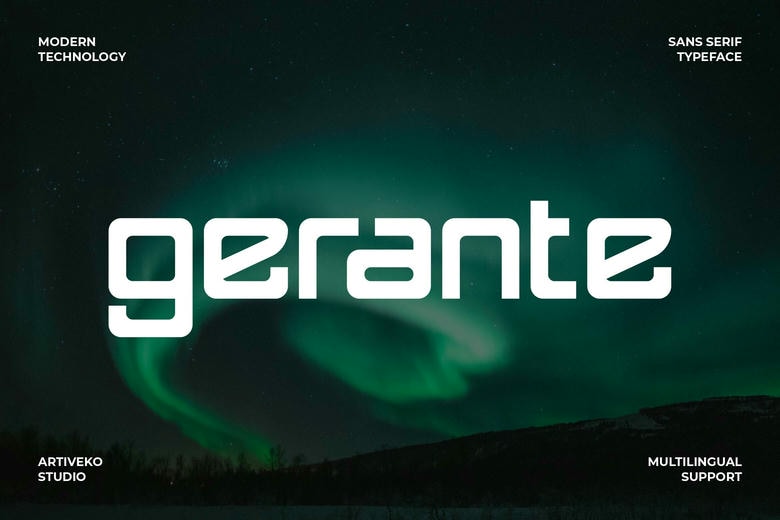
Gerante Font
Gerante is a smooth and modern tech-inspired sans serif typeface that is used in the latest digital and technology-based projects. Gerante is ideal in branding, UI/UX design, app interfaces, gaming titles, sci-fi posters, and tech product packaging with its geometric construction, sharp angles, and futuristic look.
Gerante Sans Serif Font